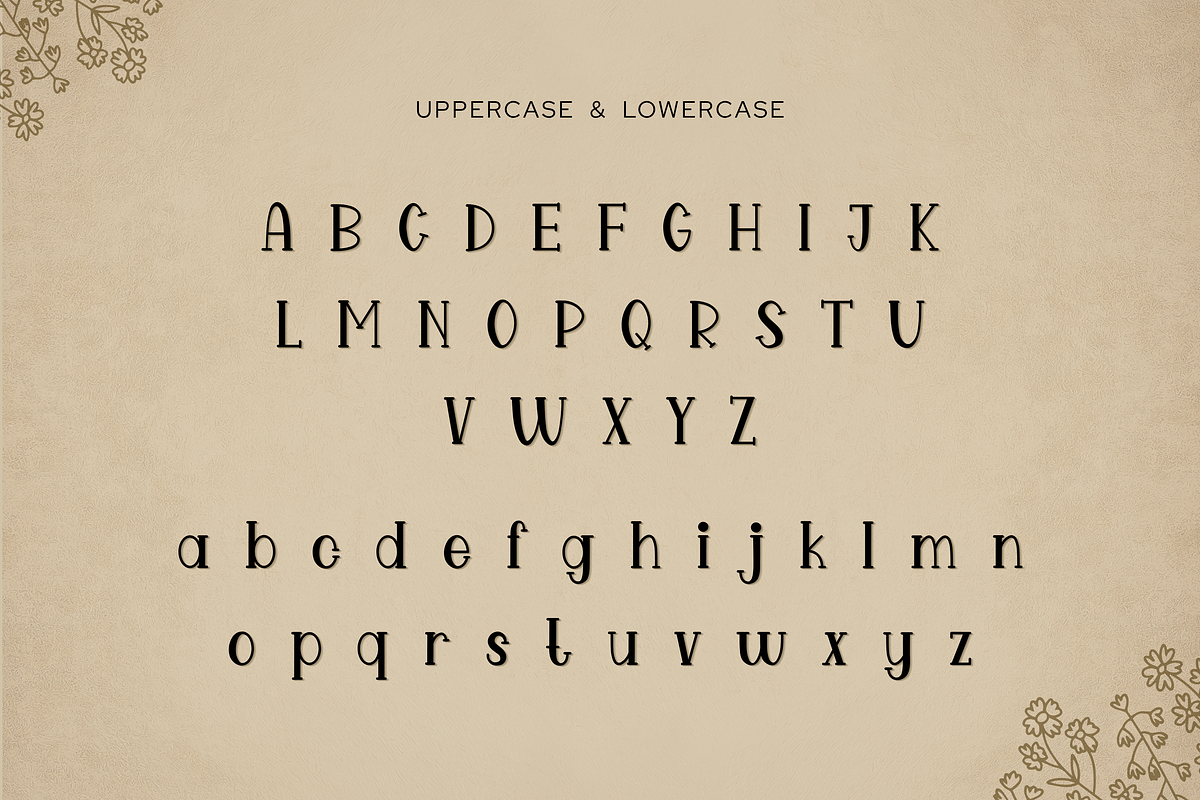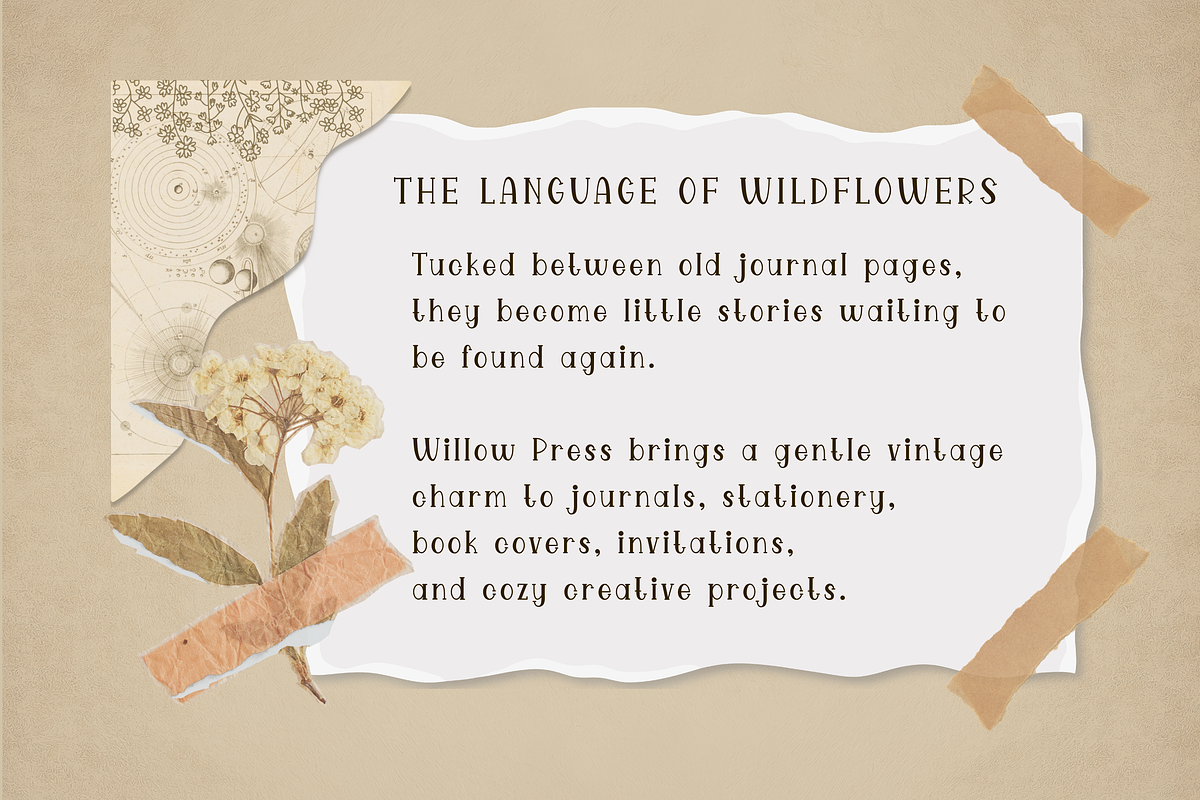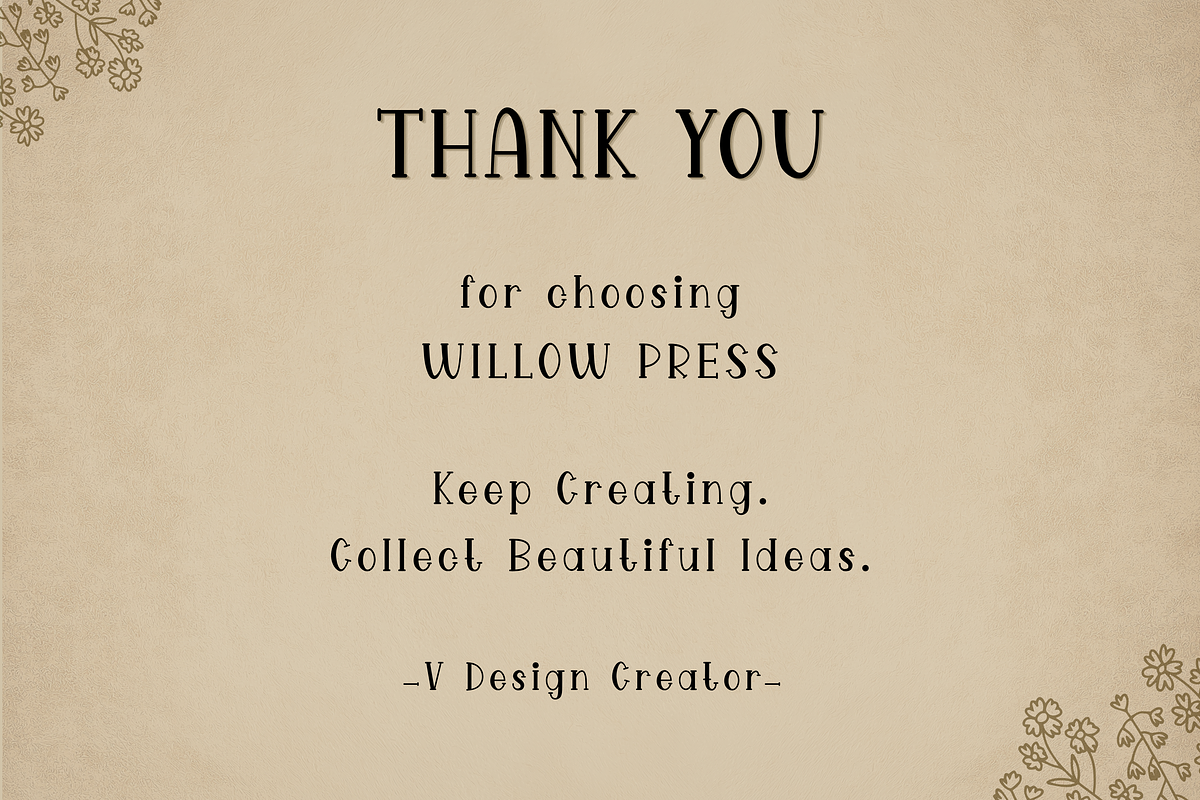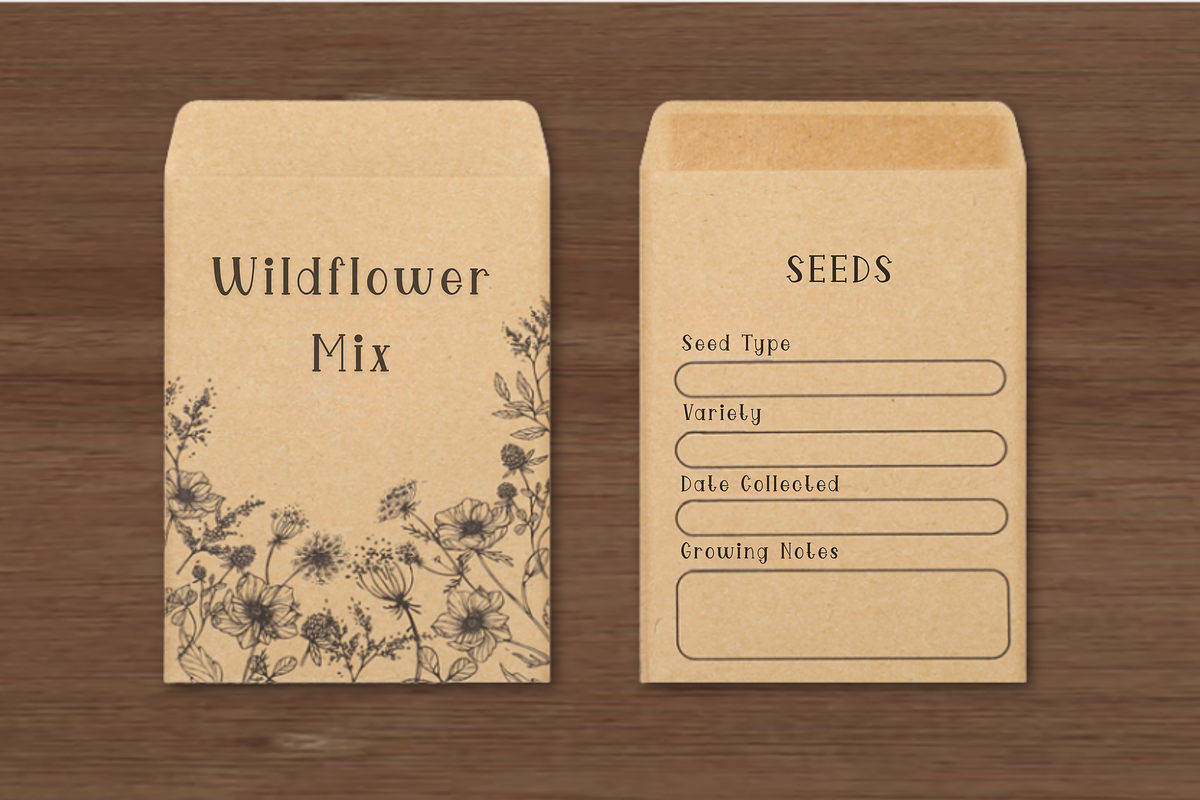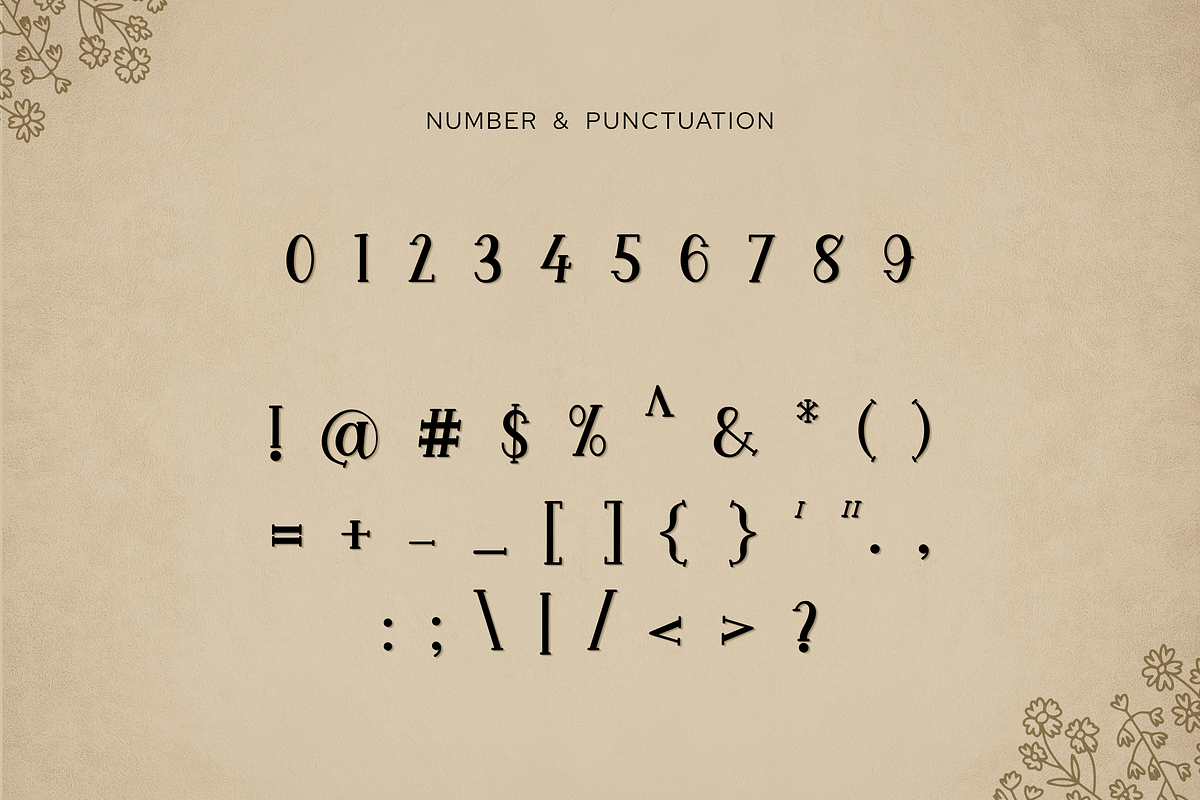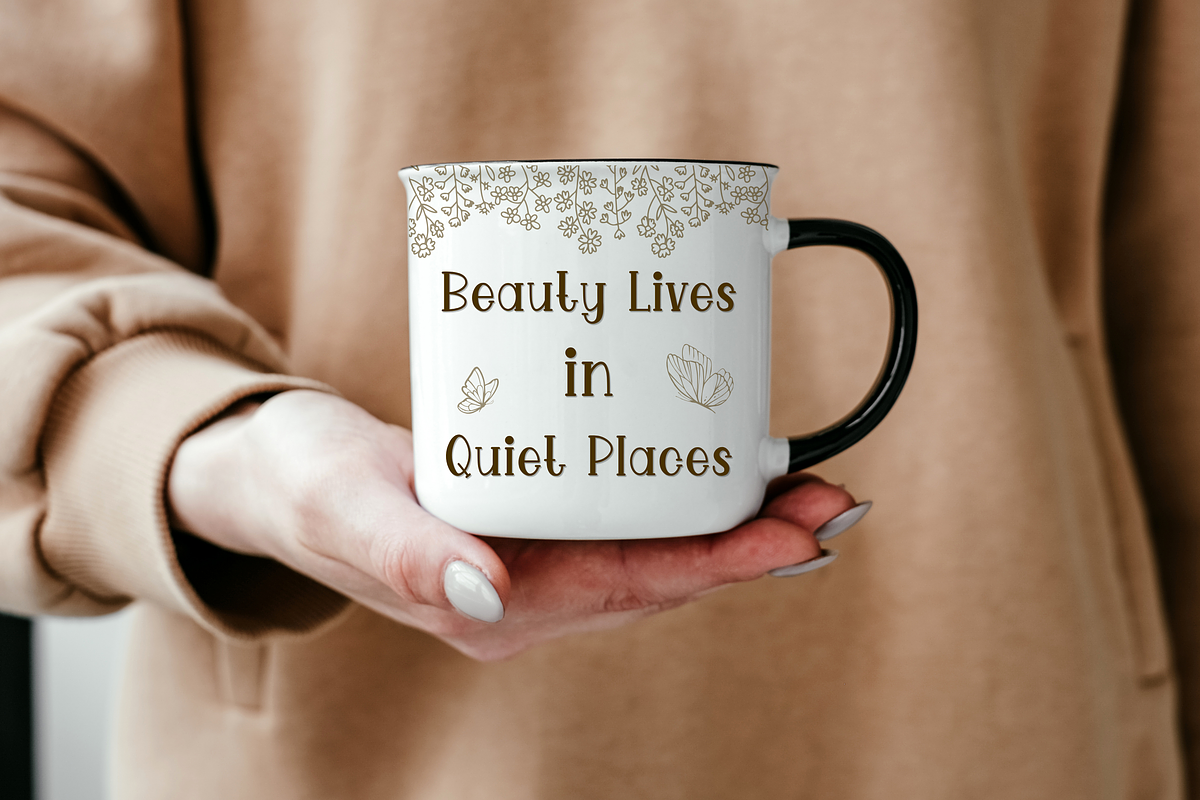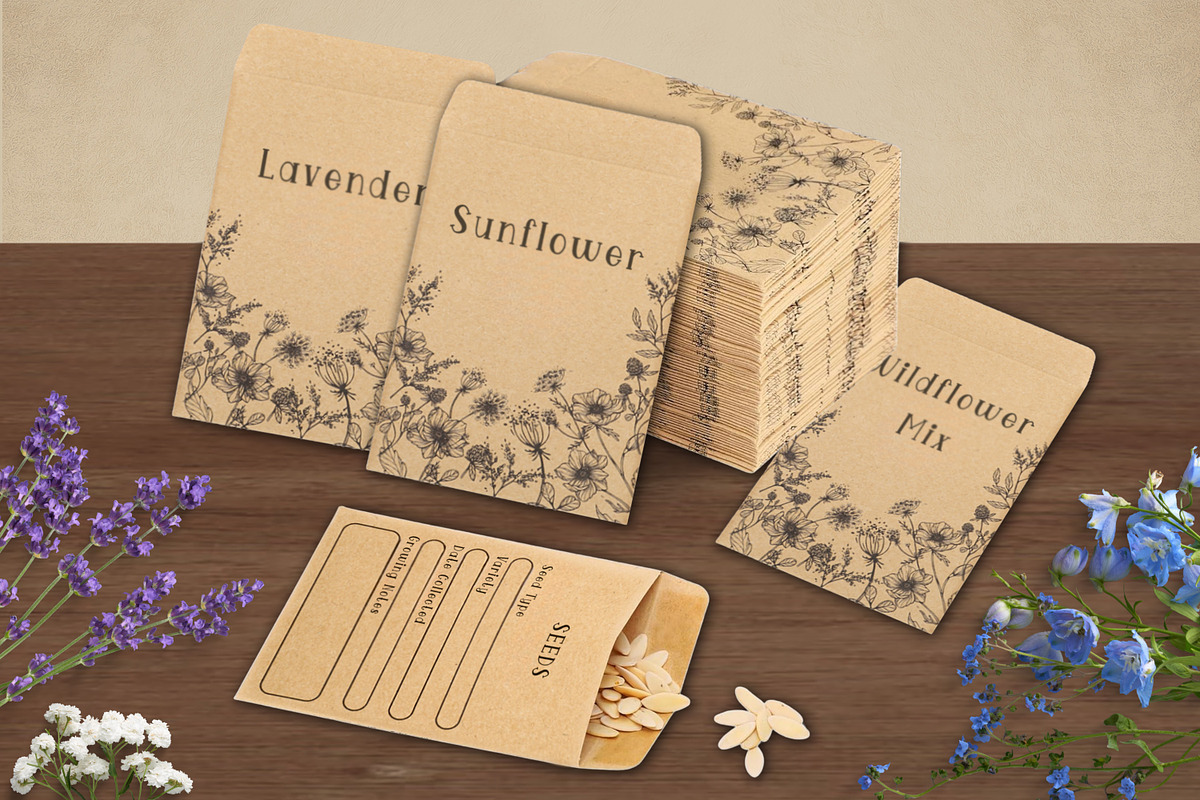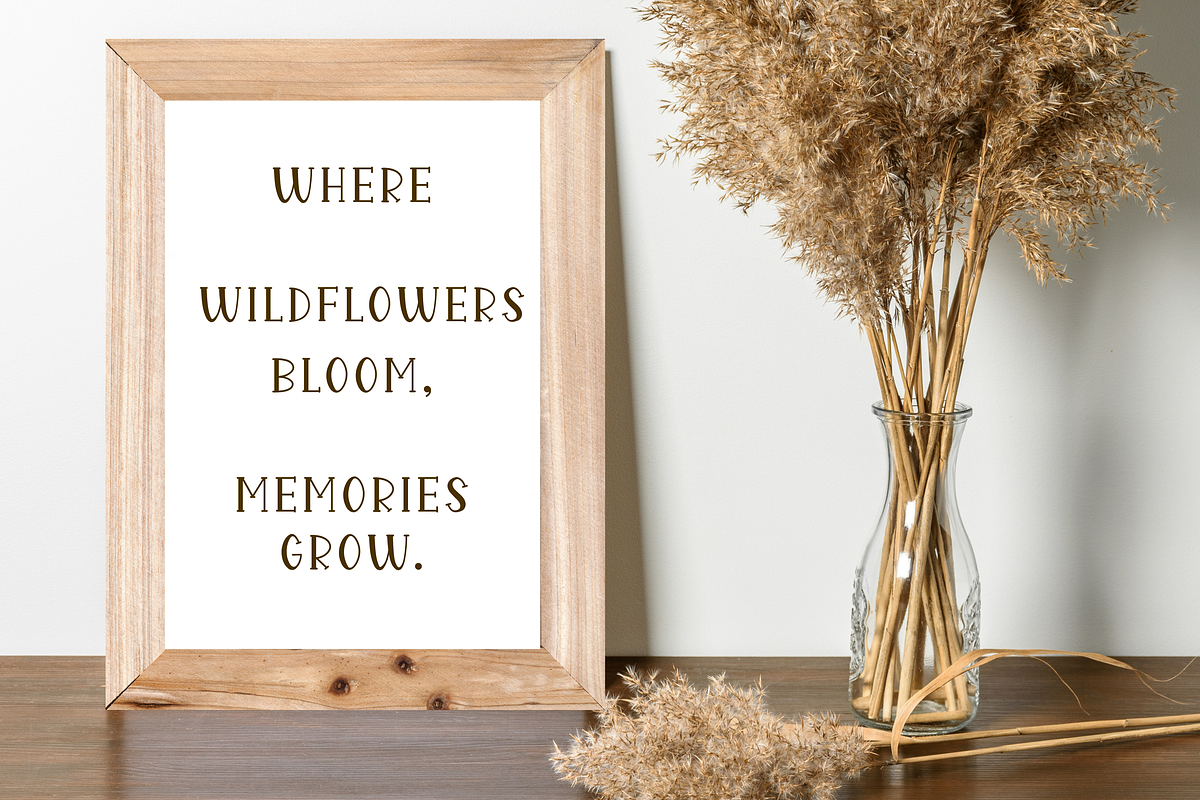
Willow Press - Vintage Serif Font
Introducing Willow Press, a vintage and playful serif font designed to bring a gentle, nostalgic charm to your creative work. Blending classic serif structures with a whimsical, hand-drawn twist, this font features a lightweight and airy feel that is full of character. It includes a complete set of uppercase and lowercase letters, along with standard numbers and punctuation glyphs.
Willow Press is perfectly suited for both print and digital media, making it an excellent choice for crafters, graphic artists, and small business owners alike. Its warm and cozy aesthetic makes it exceptionally great for personalizing journals, stationery, seed packets, custom mugs, wall art posters, or for adding a touch of noble elegance to your brand communication.
Project Ideas:
Ideal for journals, stationery, packaging, book covers, invitations, and cozy DIY crafts